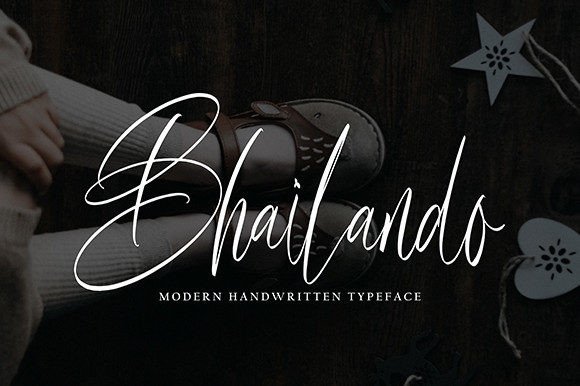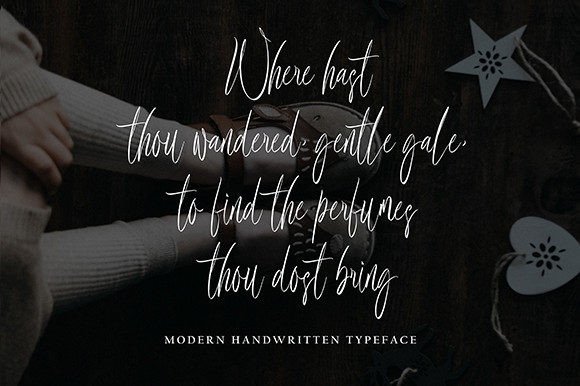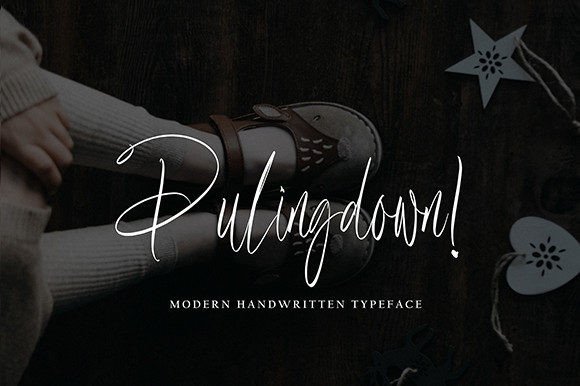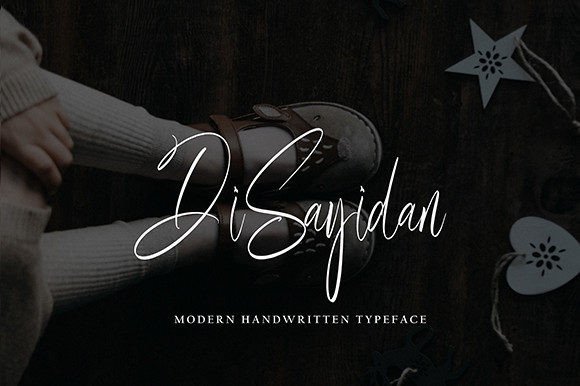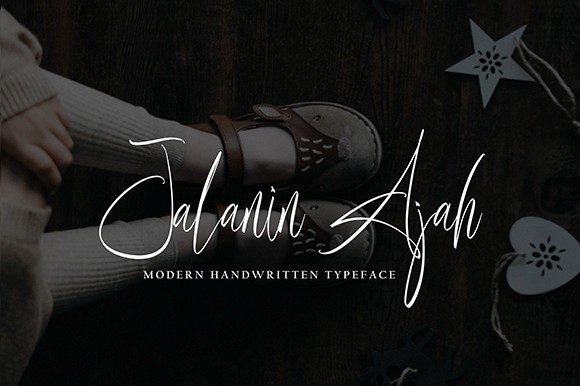
About Bhailando
Bhailando with new style, this font will perfect for many different project ex: quotes, logo, blog header, poster, banding, letter, invitation, stationery, etc…